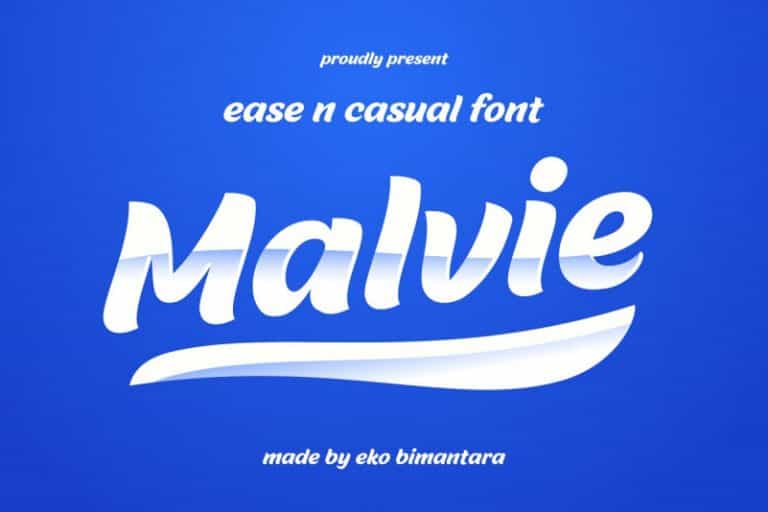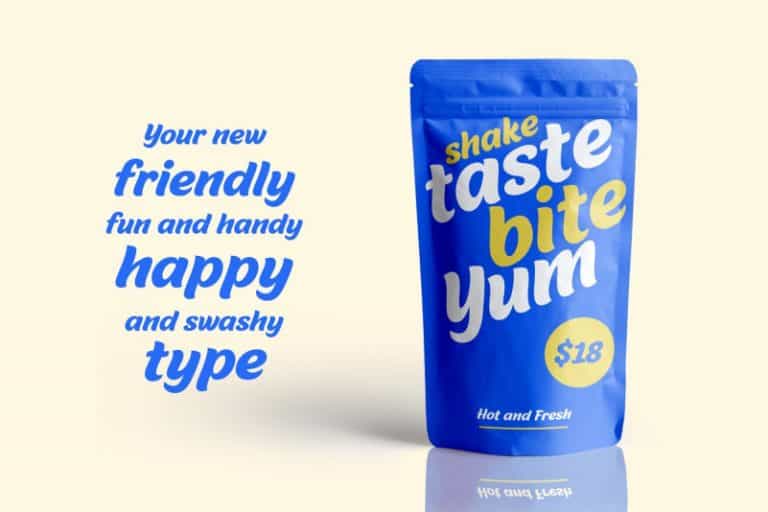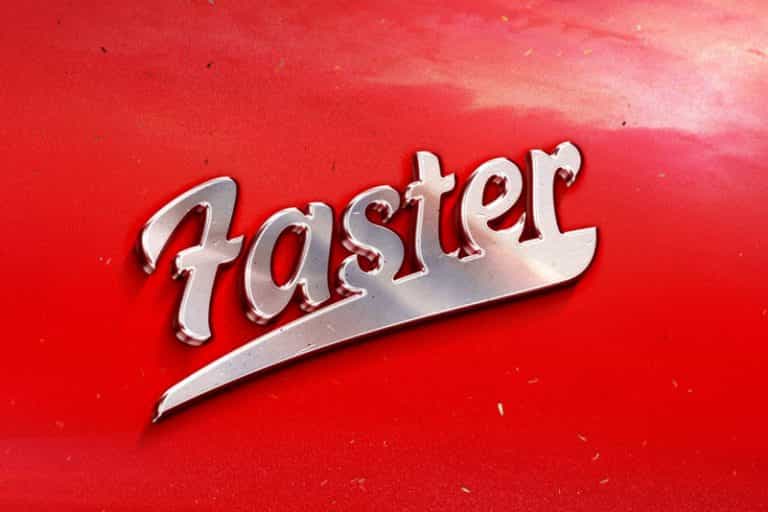
Hello Guys! Thank you for searching Malvie Fun and Casual Font. A new Layered bold script font is now available. Malvie was created by the inspiration from handlettering, bold script logotype and kids font. The design was created and then posted by Eko Bimantara.